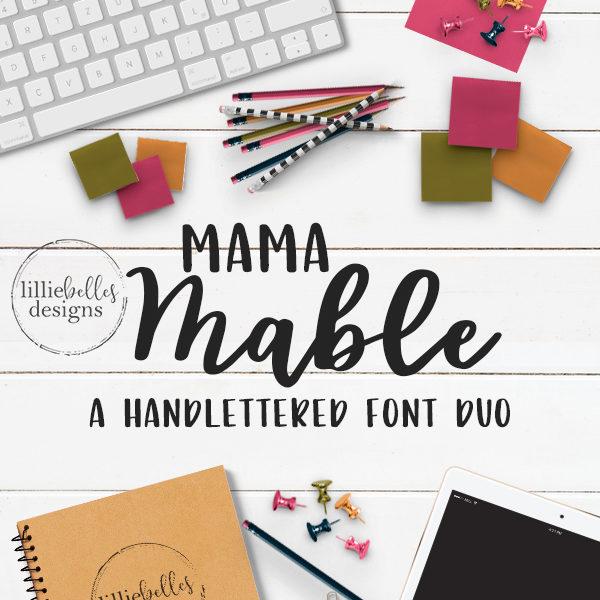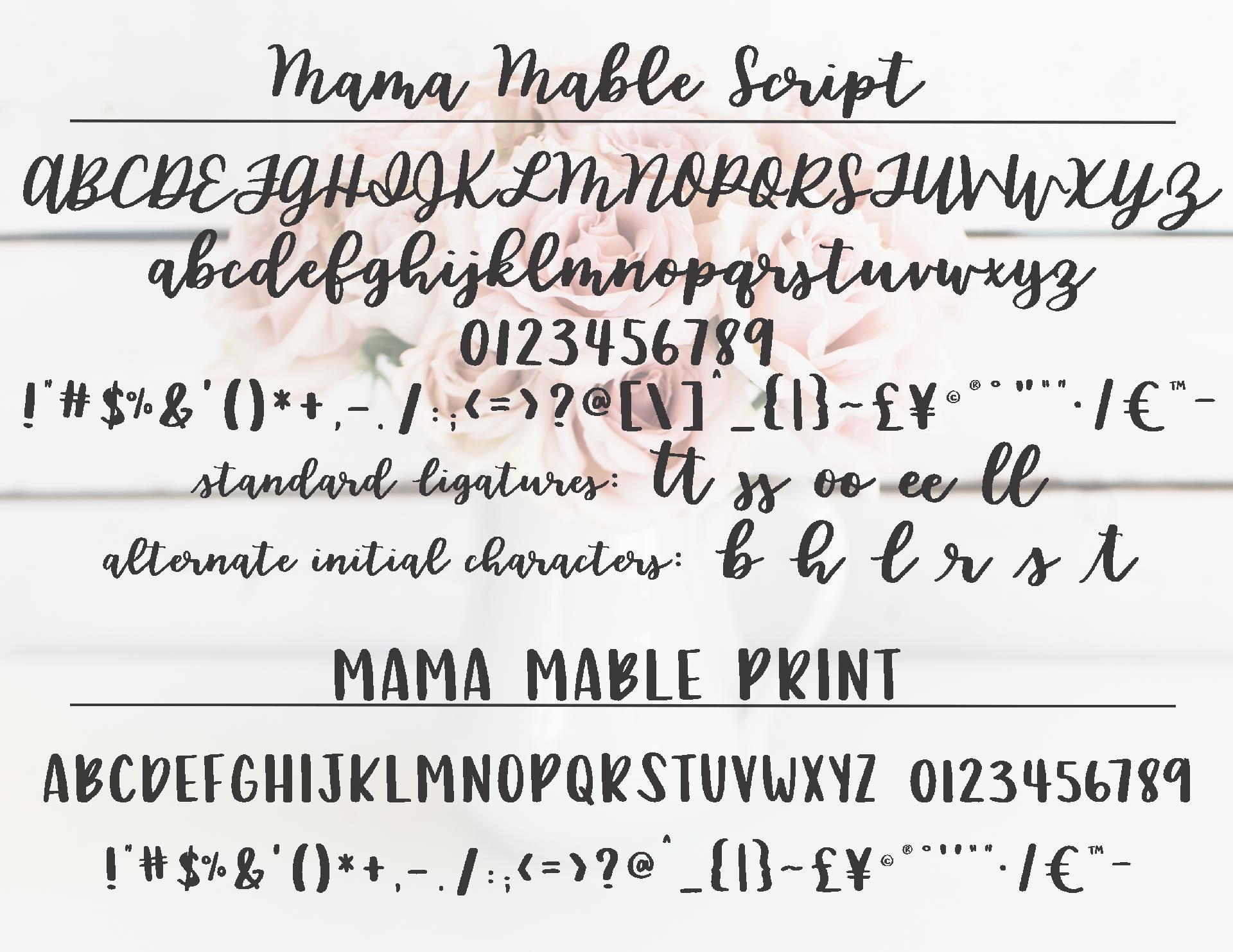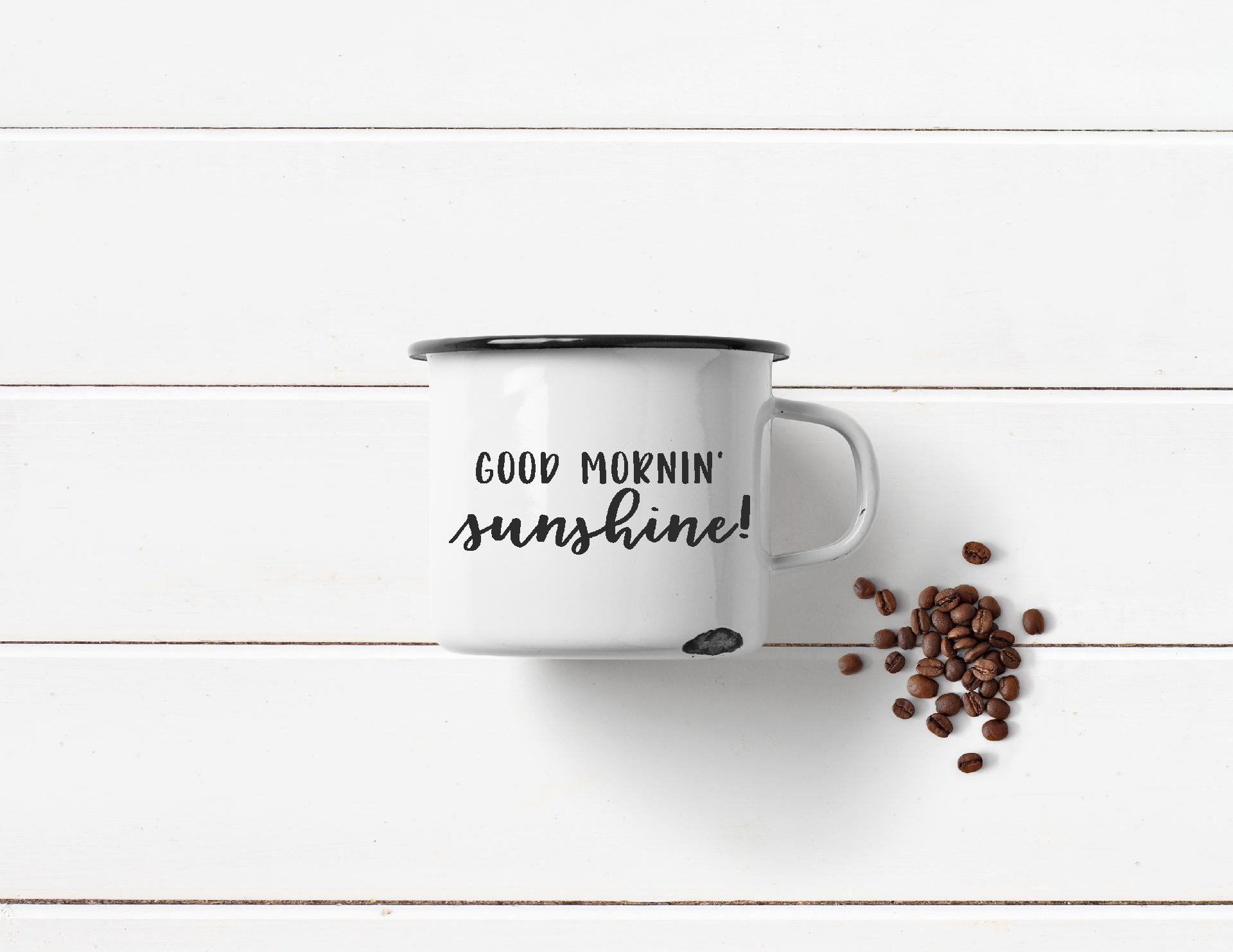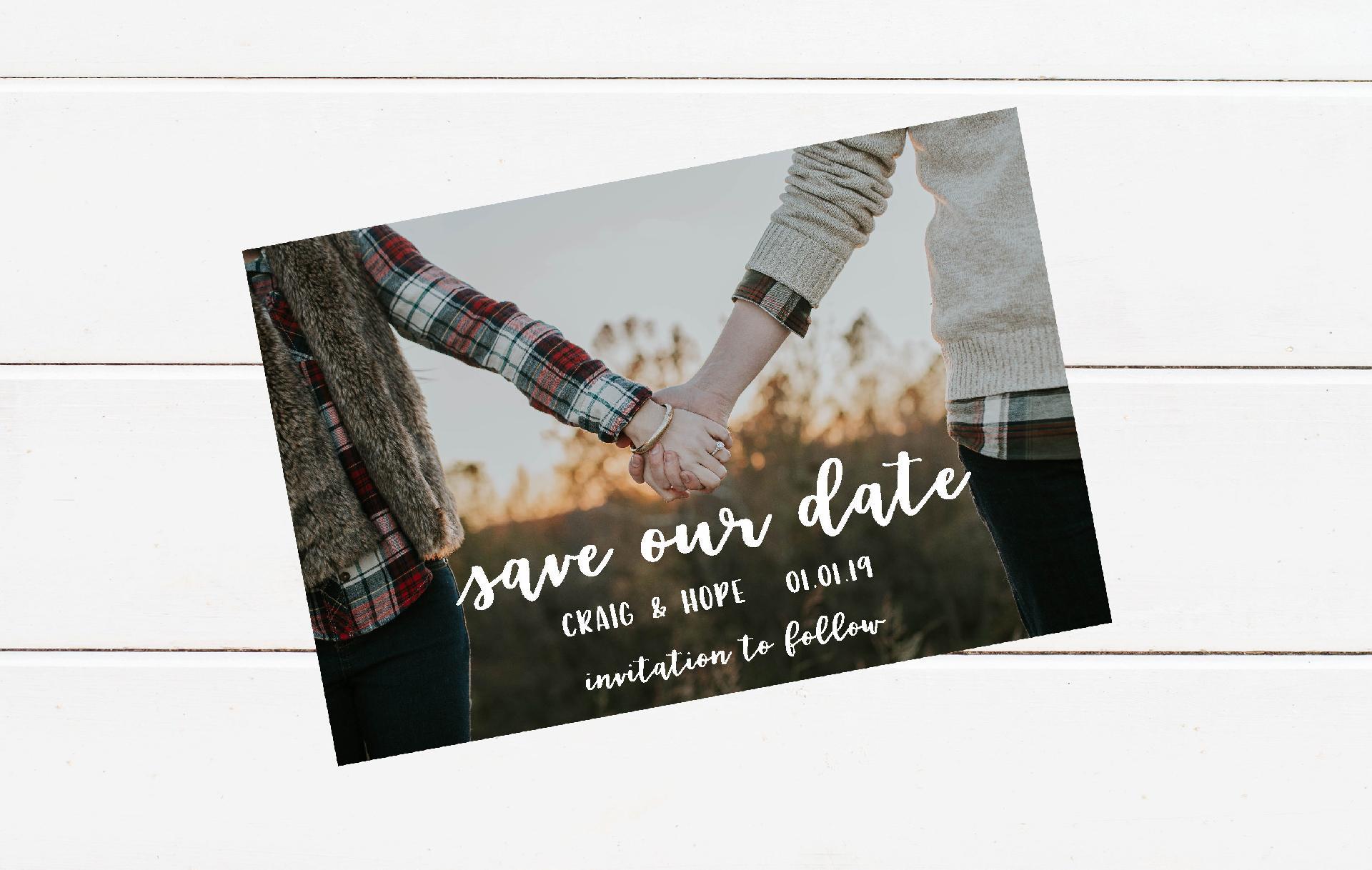
About Mama Mable
Mama Mable – A handlettered font duo. You get the Mama Mable script font, and you also get the Mama Mable Print font! The script font includes upper and lower case characters, numbers, punctuation, alternate characters & standard ligatures. The print font includes uppercase print only with number and punctuation. You will need to install both fonts on your computer.